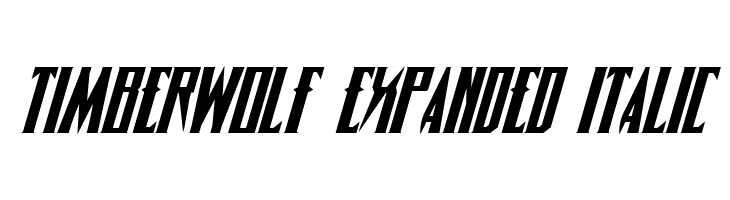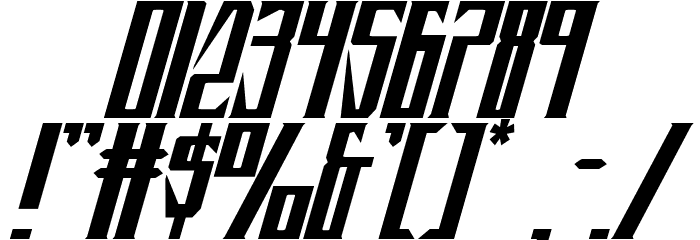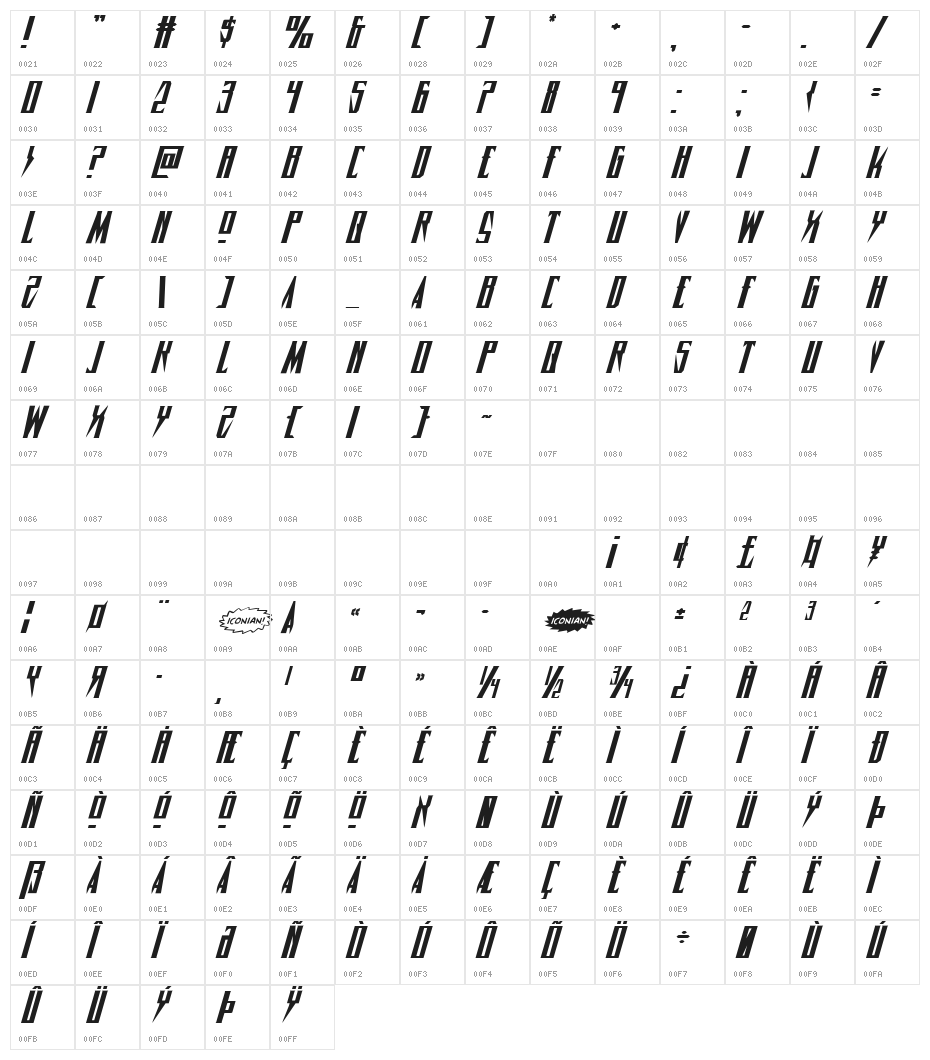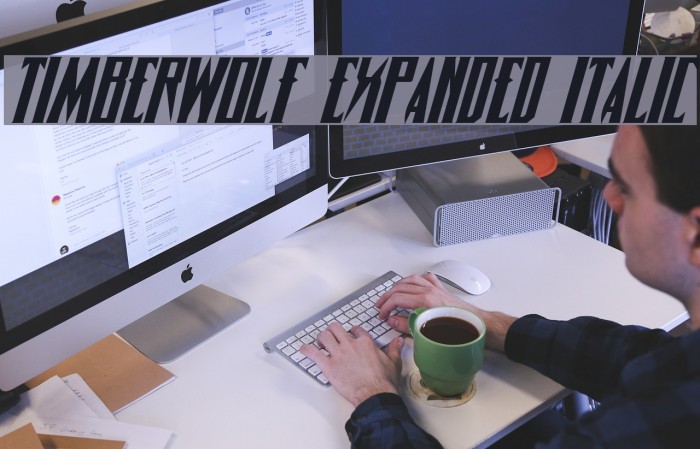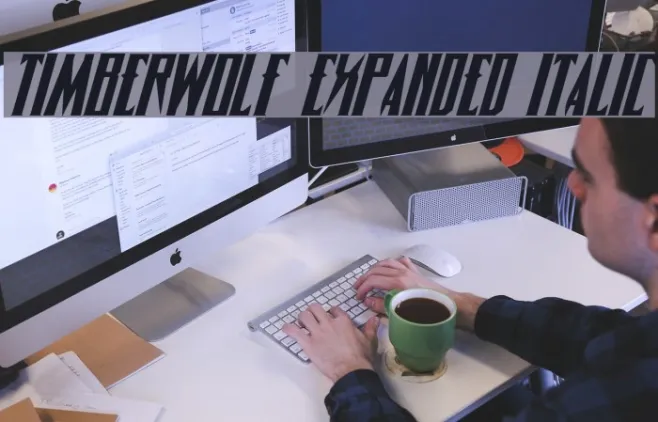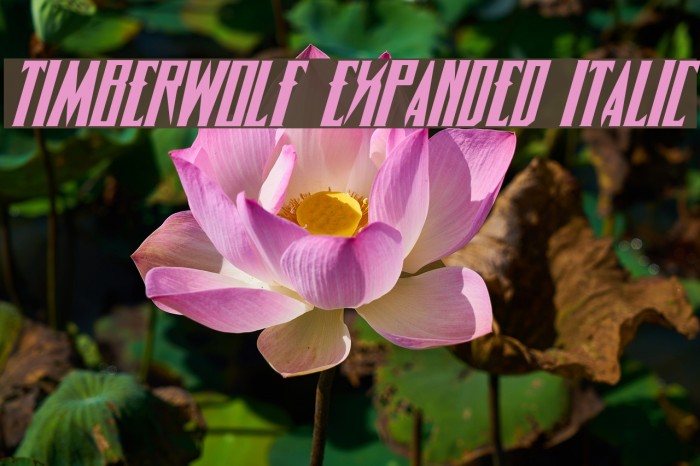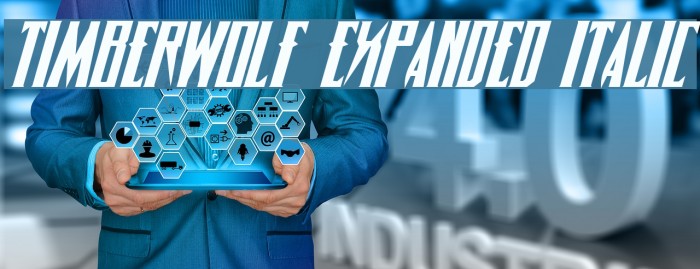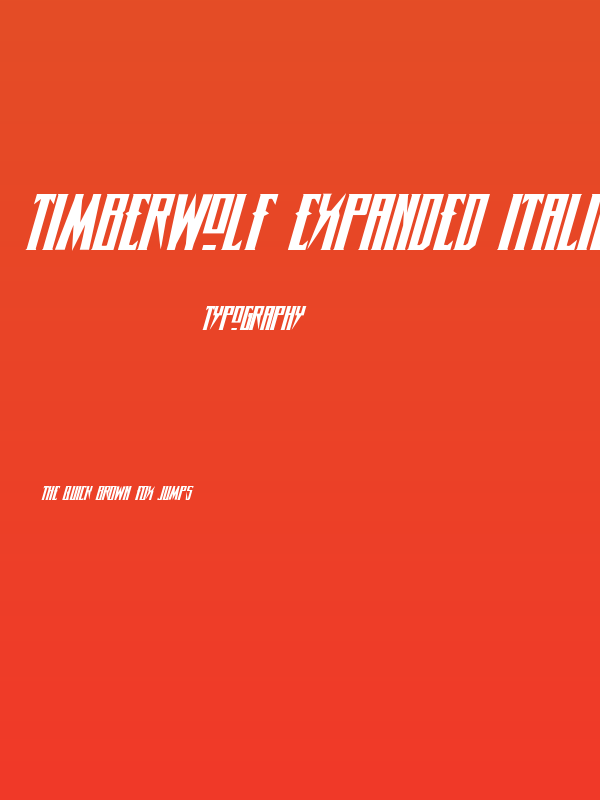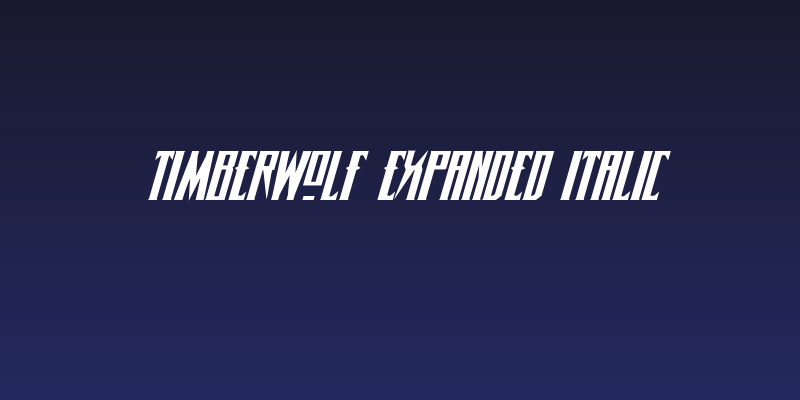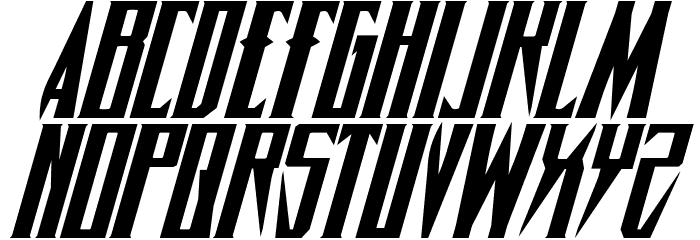
Timberwolf Expanded Italic Font
Timberwolf Expanded Italic Description
This font features a bold and dynamic style with a strong italic slant, giving it a sense of motion and energy. The characters are sharply angular, with exaggerated serifs and a condensed form that enhances its striking appearance. The uppercase and lowercase letters maintain a consistent height, creating a uniform look across the text. The numbers and special characters follow the same angular and bold design, ensuring cohesion throughout. This font's unique style makes it stand out, ideal for projects that require a bold statement.
| Proposed Projects | Ideal for sports branding, dynamic posters, edgy advertisements, and modern logos. |